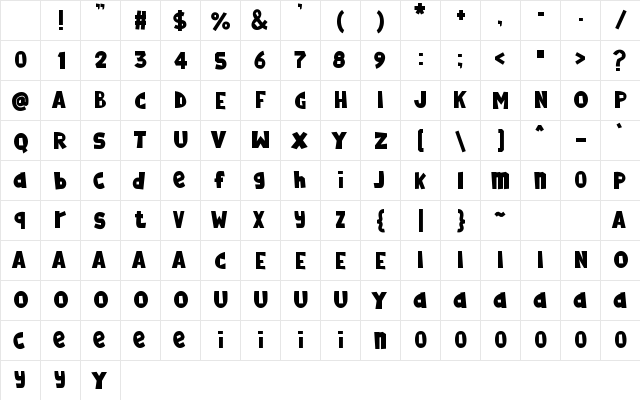
Complete Tropicfun Regular glyph index. Displaying only characters natively supported by Tropicfun Regular font.
Tropicfun has an approachable, lighthearted character - its loose, expressive forms are well-suited to children's content, casual branding, and fun-first design.
Font Pairing: Pairs well with a rounded or humanist sans for body copy, maintaining the friendly tone without relying on Tropicfun to carry extended reading.
Pro Tip: Use Tropicfun at larger display sizes where its expressive character can land. Pair with a clean, simple sans for body copy to maintain readability.